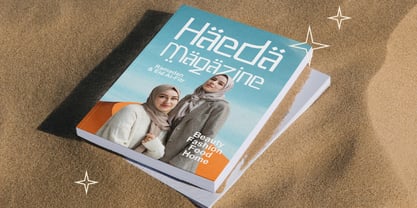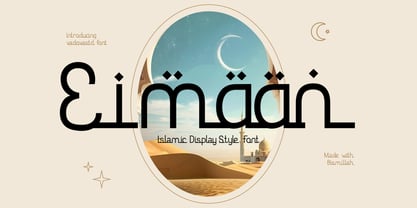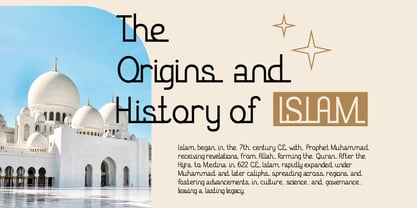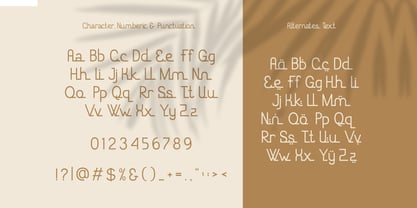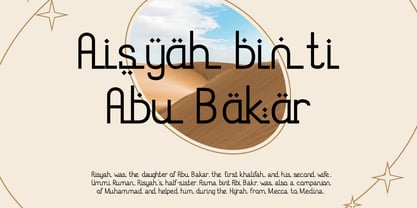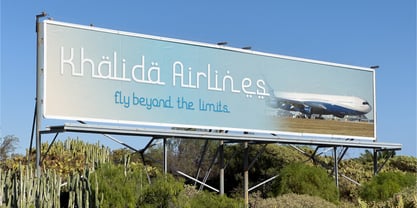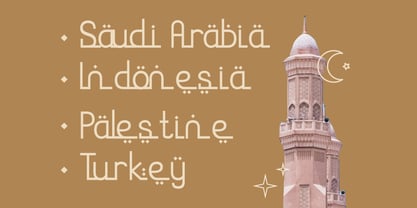
Eimaan
Elevate your designs with Eimaan Islamic Font, a modern font perfect for adding elegance and style to your projects. Whether it’s for quotes, logotypes, magazine headers, or more, this versatile typeface ensures your text stands out beautifully.